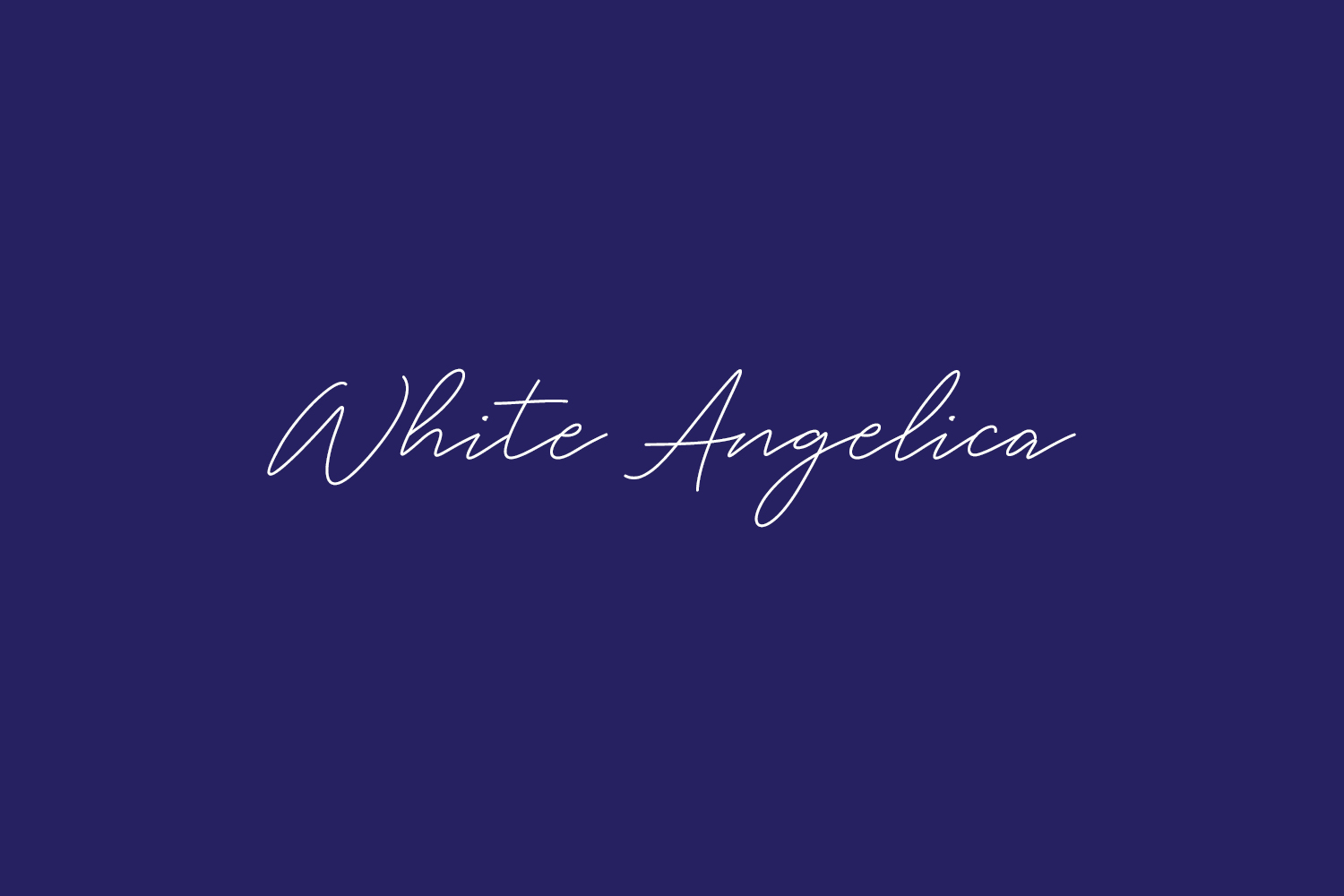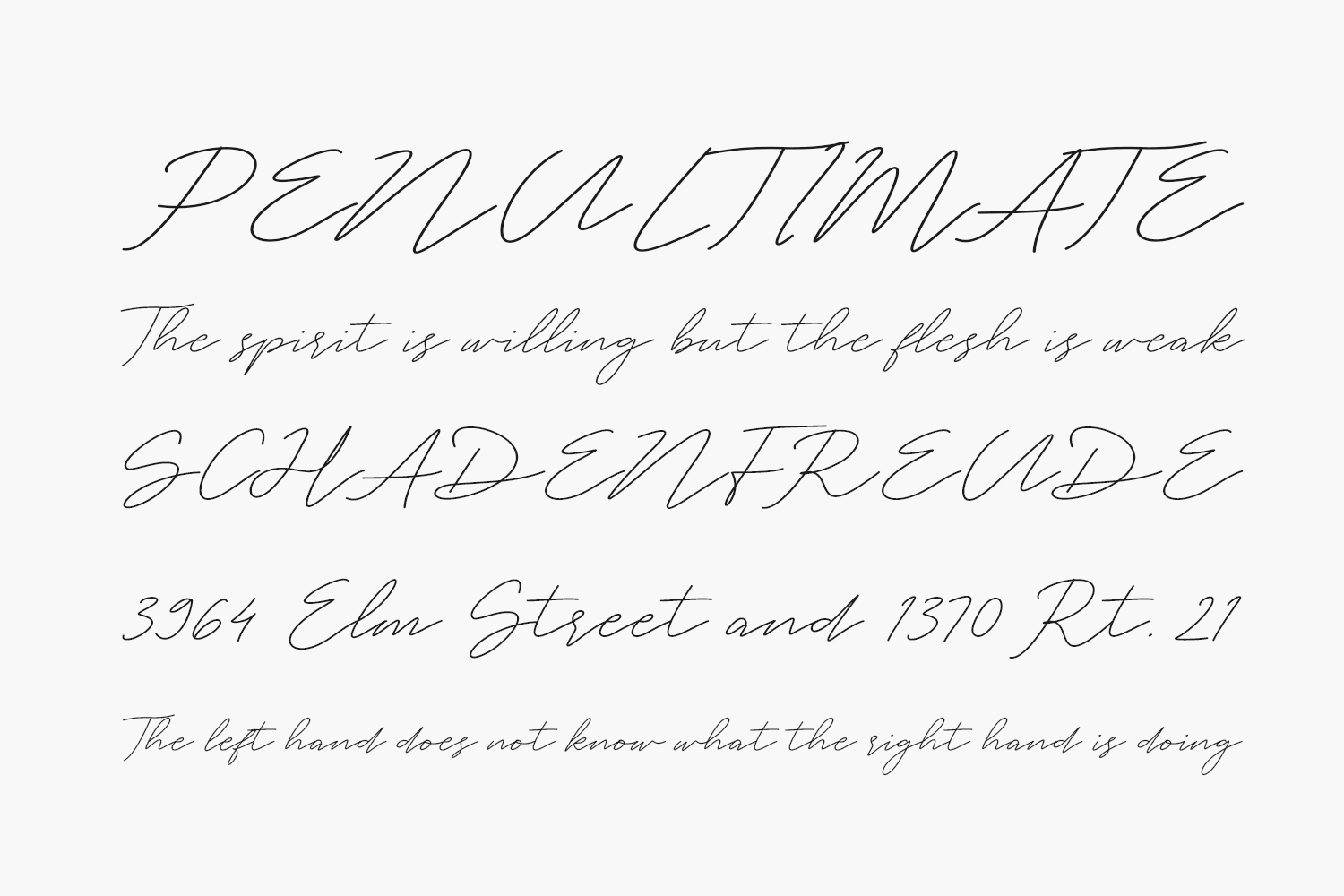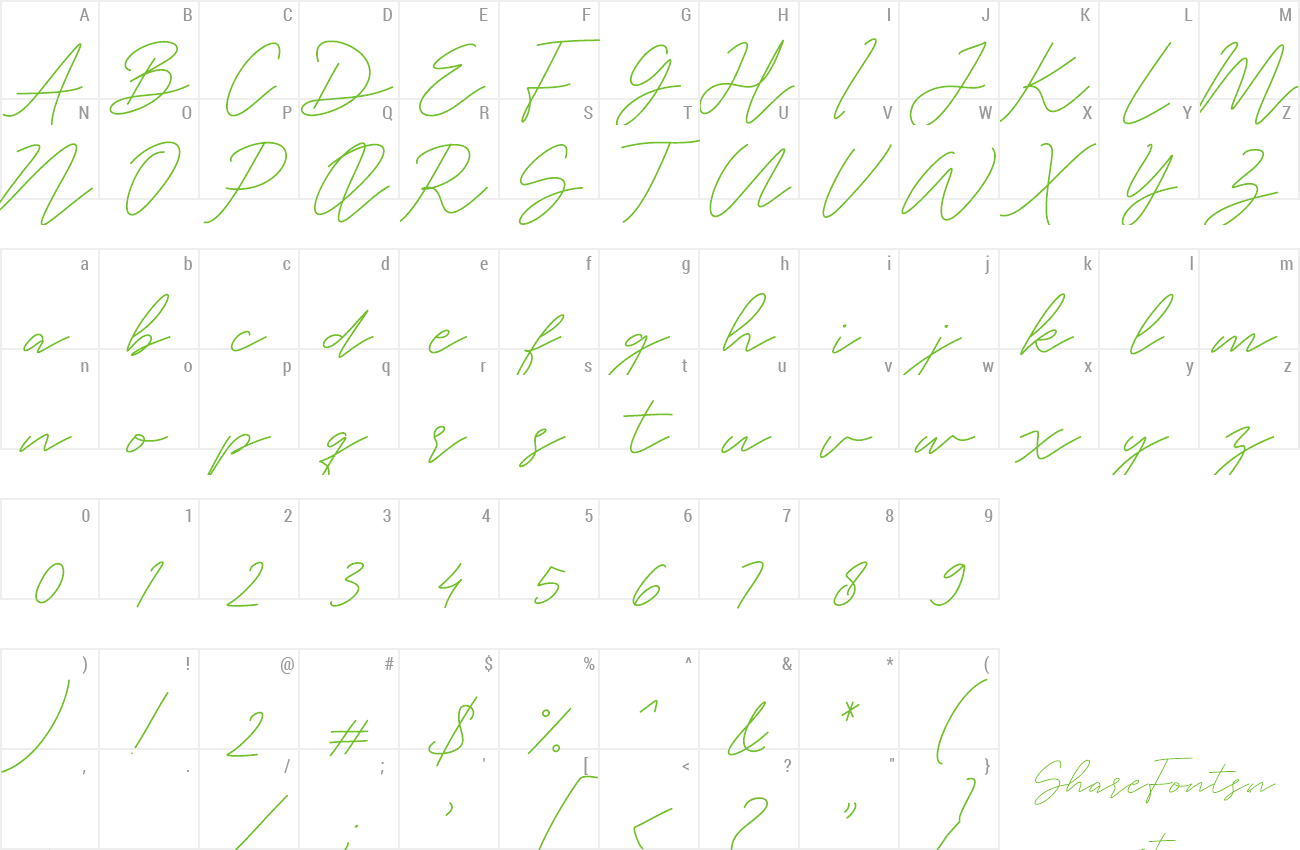
White Angelica Font
White Angelica Font - Web download white angelica font · free for personal use · by installing or using this font, you are agree to the product usage agreement: Web white angelica signature is an elegant handwritten unique flow font with natural and organic look. This font is already full. Web white angelica signature is an elegant handwritten unique flow font with natural and organic look. White angelica signature is perfect for branding projects,. Web 736,549 downloads (96 yesterday) 10 comments free for personal use. White angelica signature is perfect for branding projects,.
Web White Angelica Signature Is An Elegant Handwritten Unique Flow Font With Natural And Organic Look.